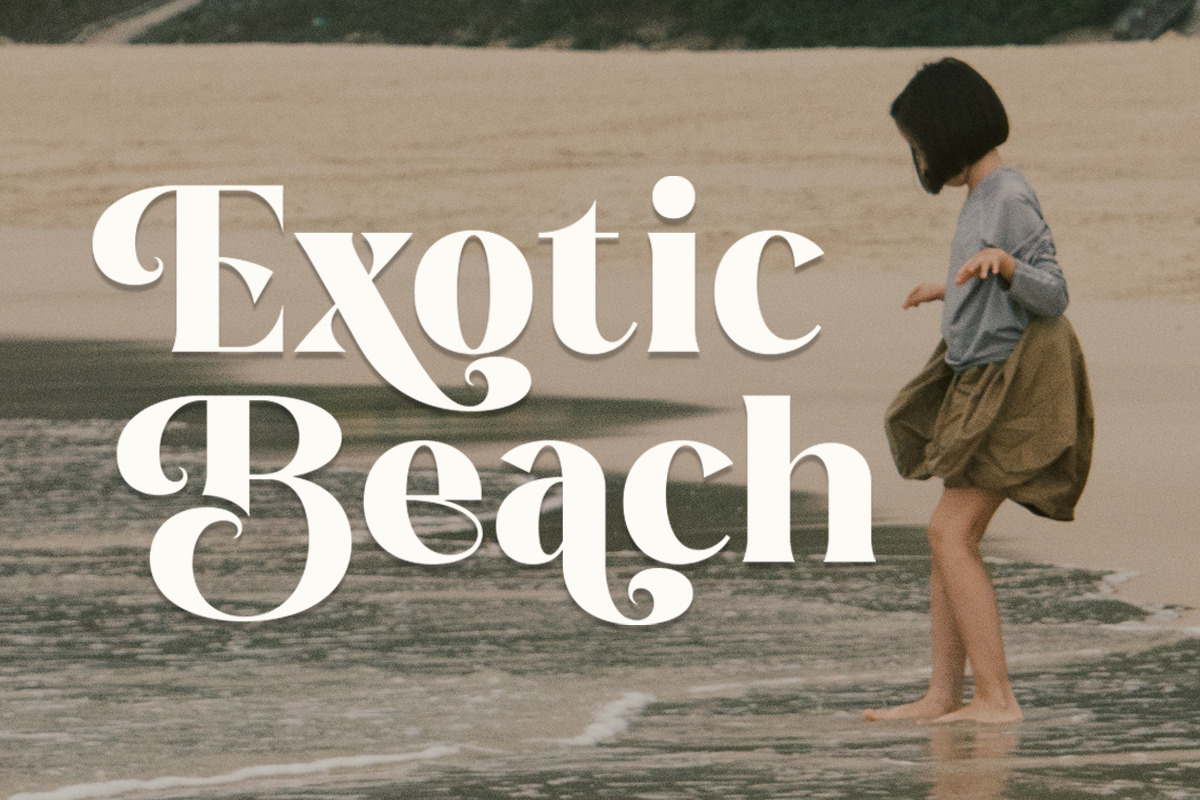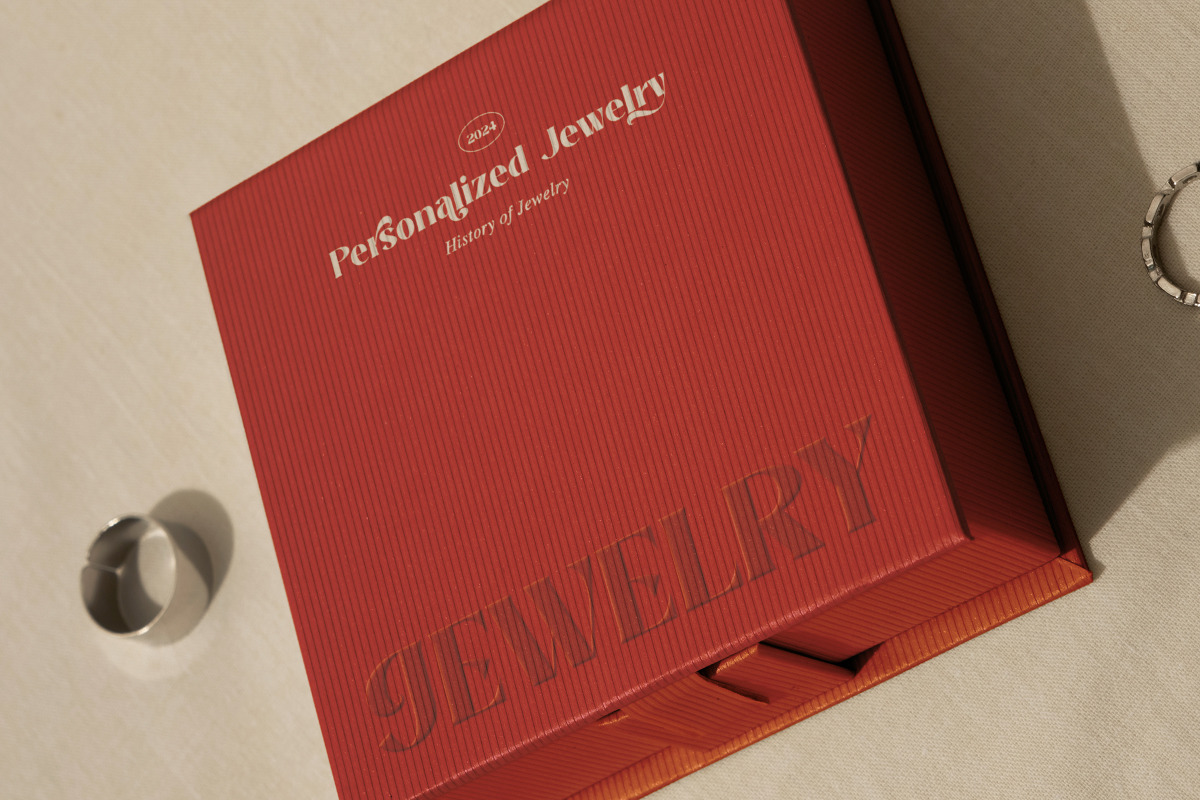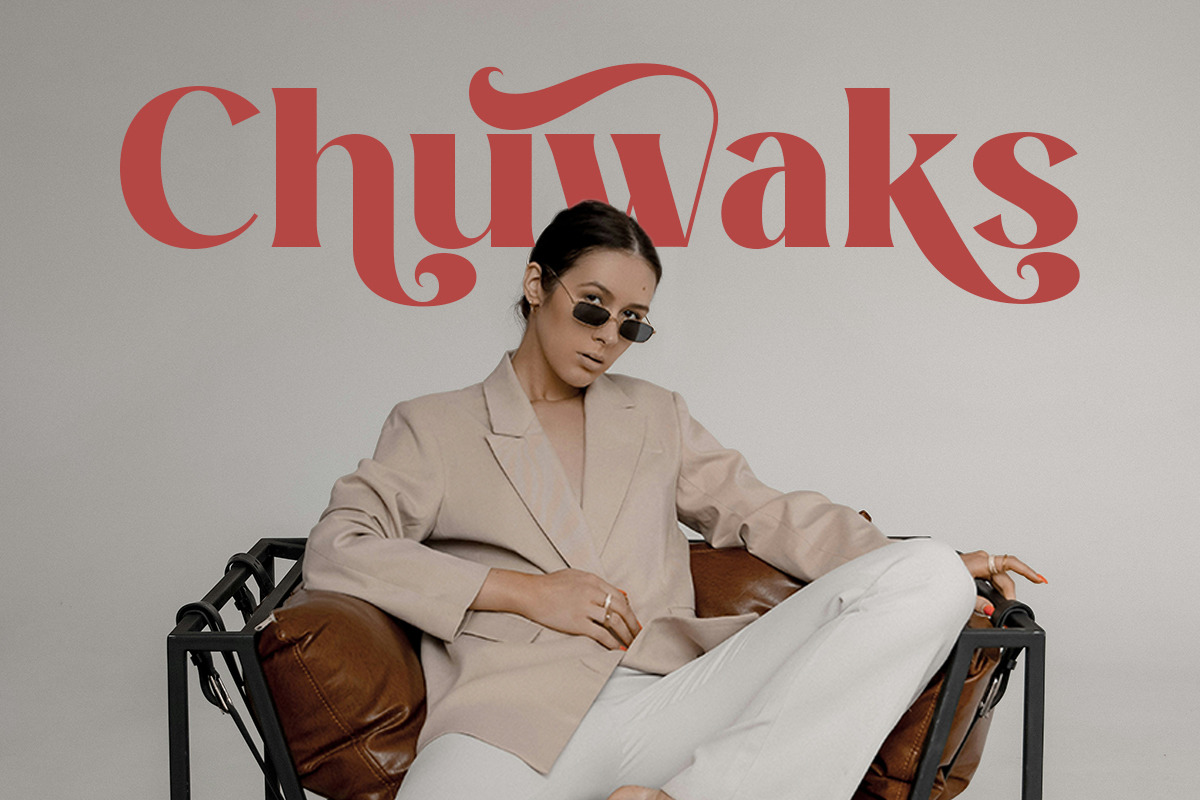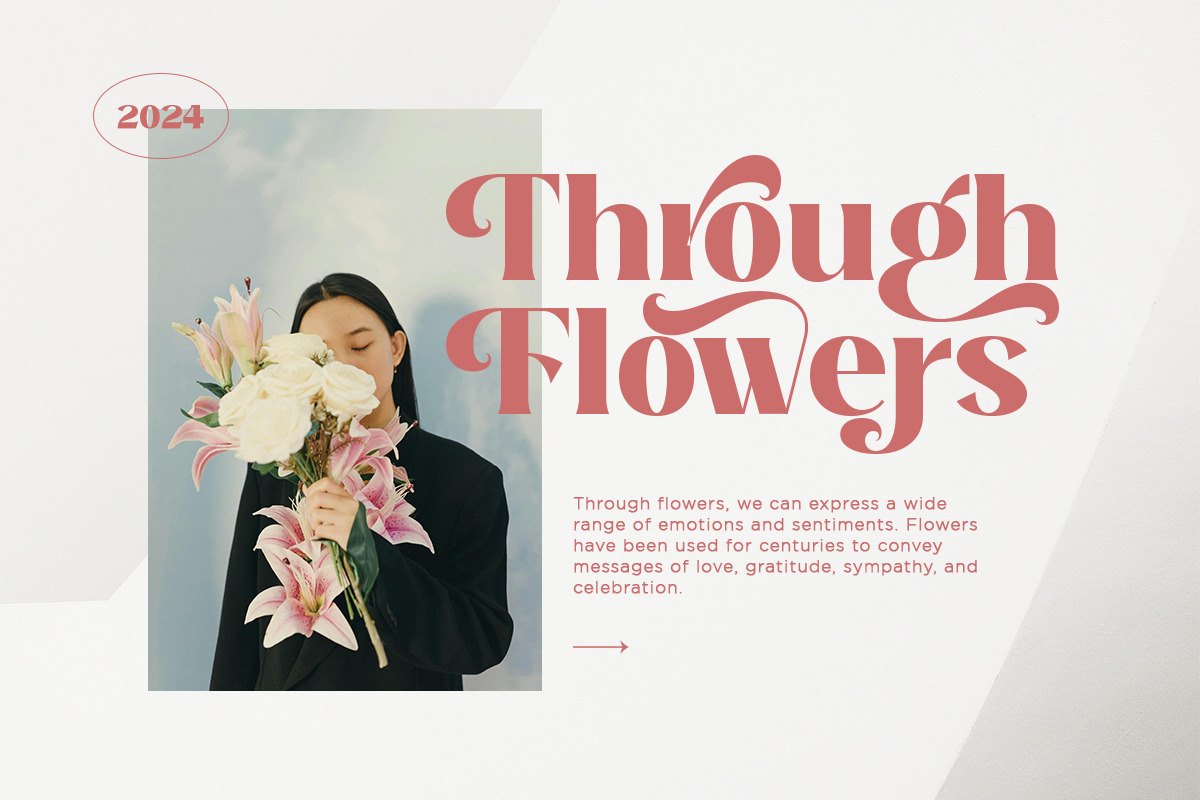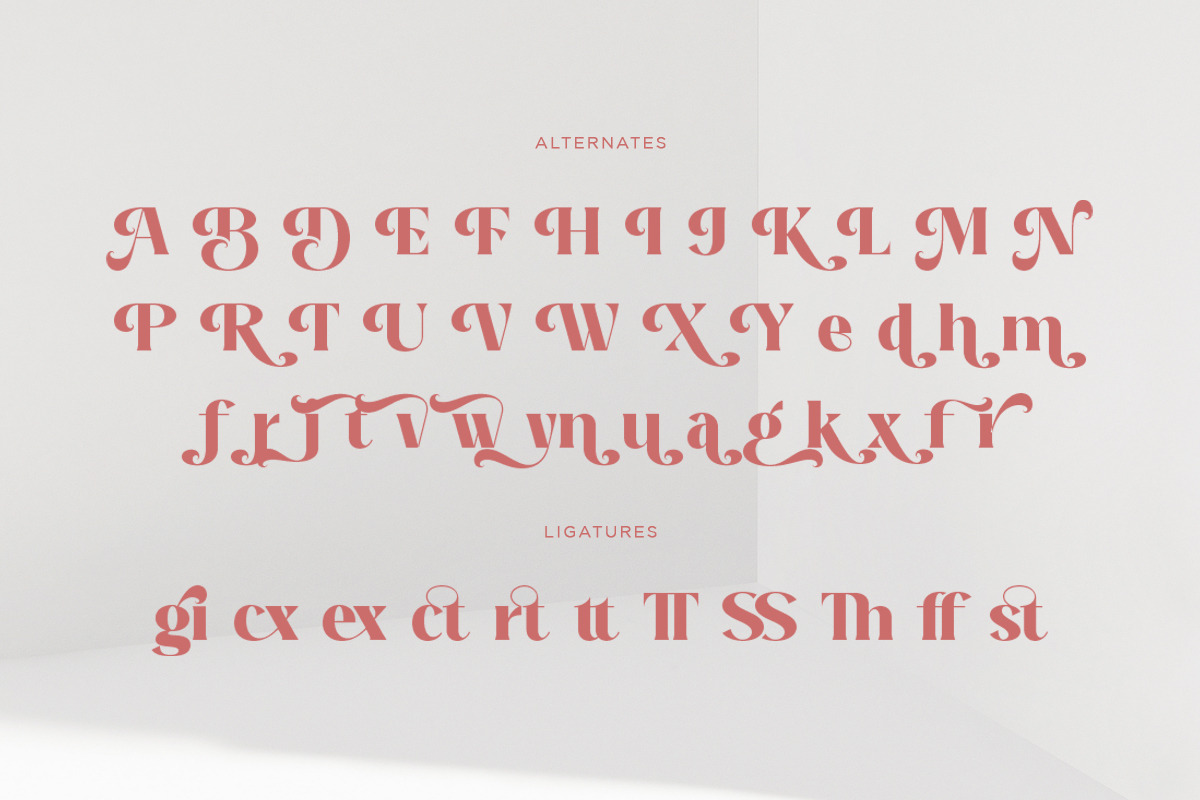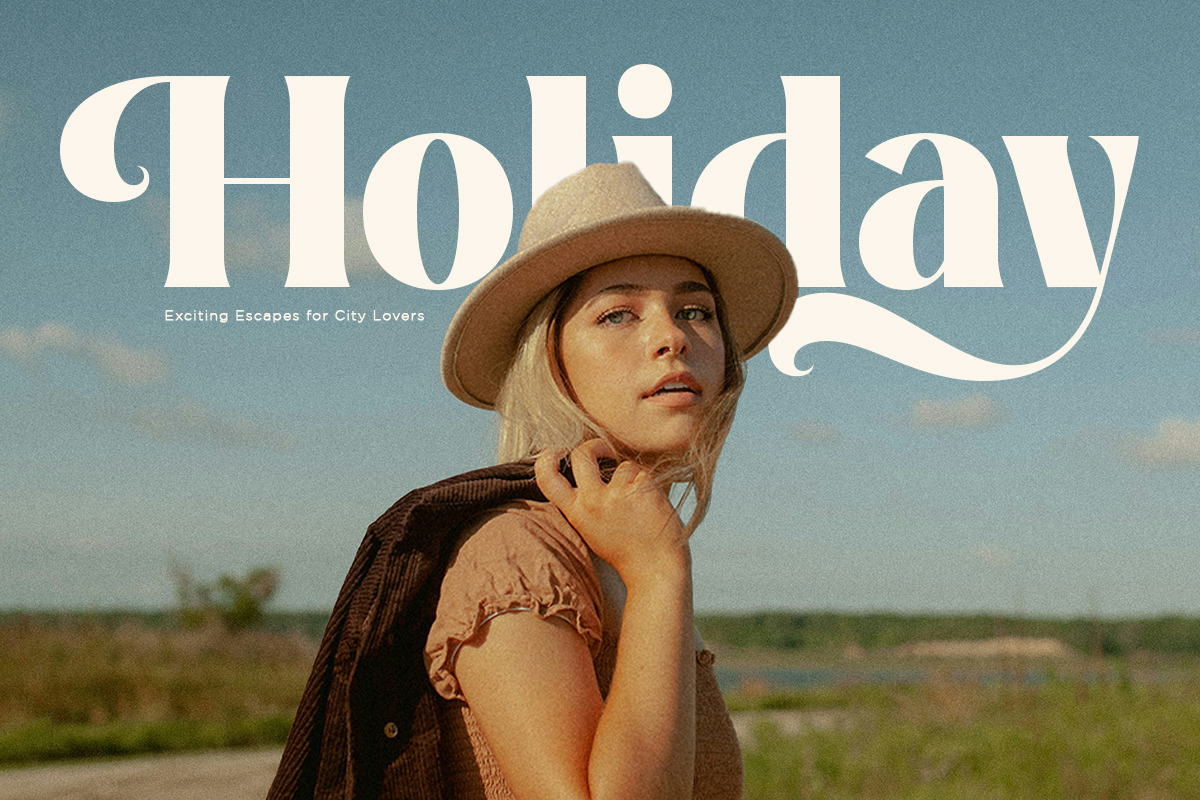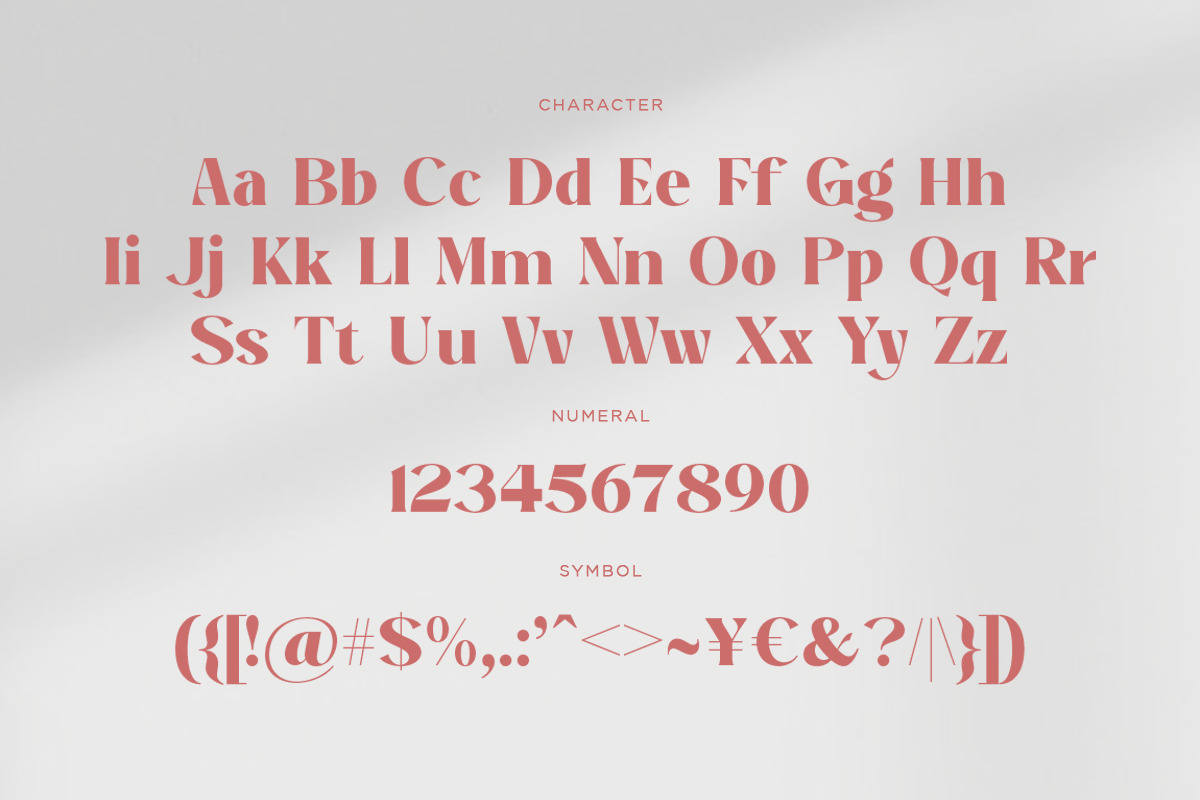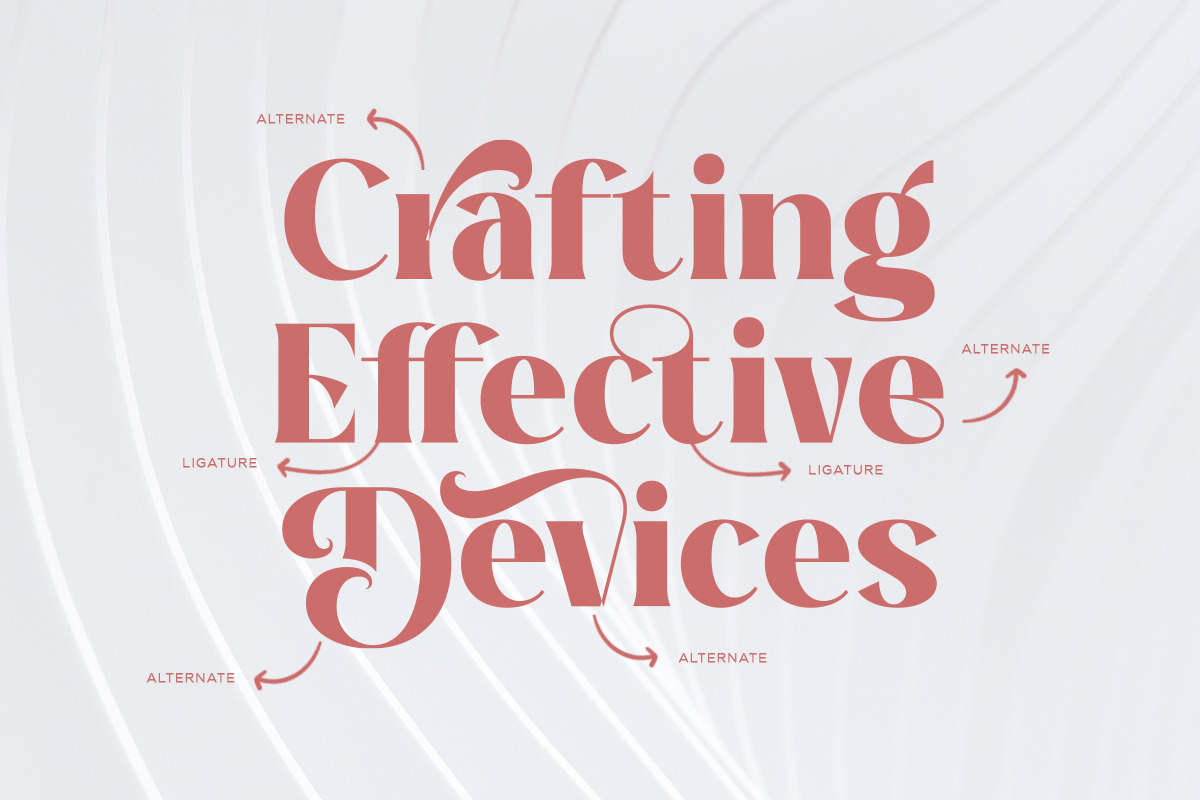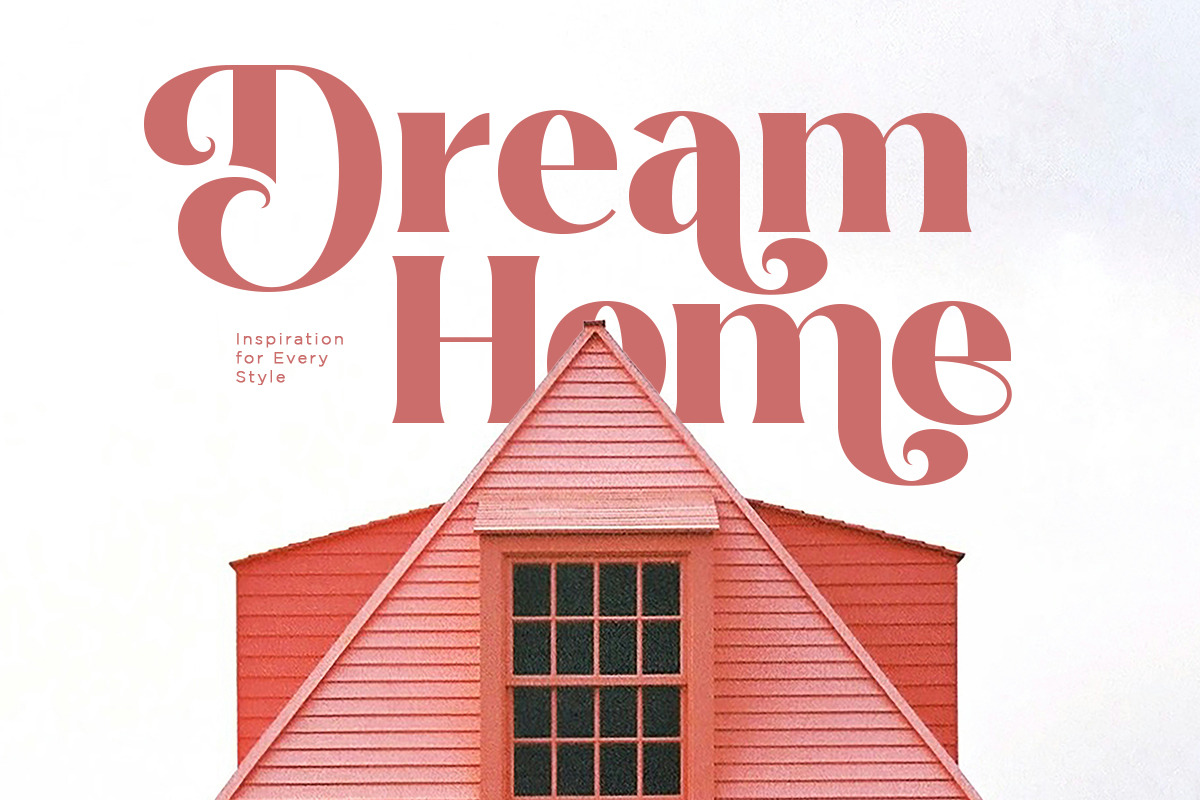
Another Beauty - Stylish Serif
Introducing Another Beauty - Elevate Your Designs with Stylish Elegance and Class!
Another Beauty isn't just a serif font; it's a testament to sophistication and timeless style. With its stylish and elegant characters, Another Beauty exudes an air of class that's perfect for any design project.
Crafted for designers seeking to make a statement, Another Beauty offers a perfect blend of elegance and versatility. Its classy serifs and graceful curves make it ideal for logos, branding materials, invitations, and more.
- Opentype features ( ligature, alternate )